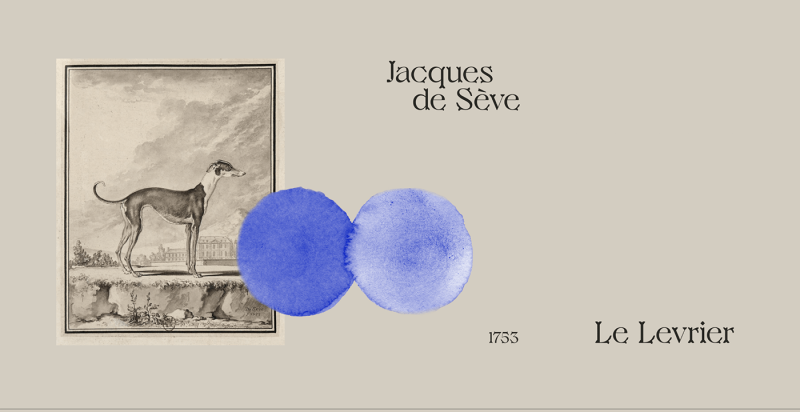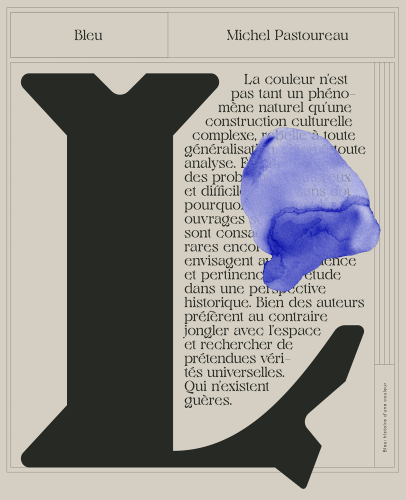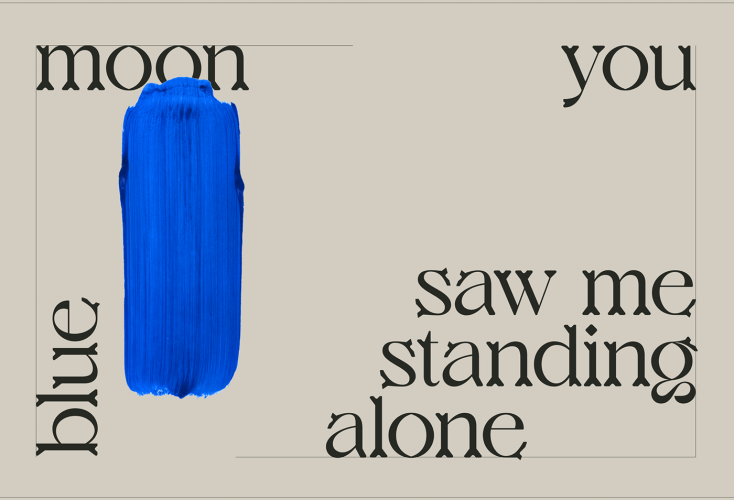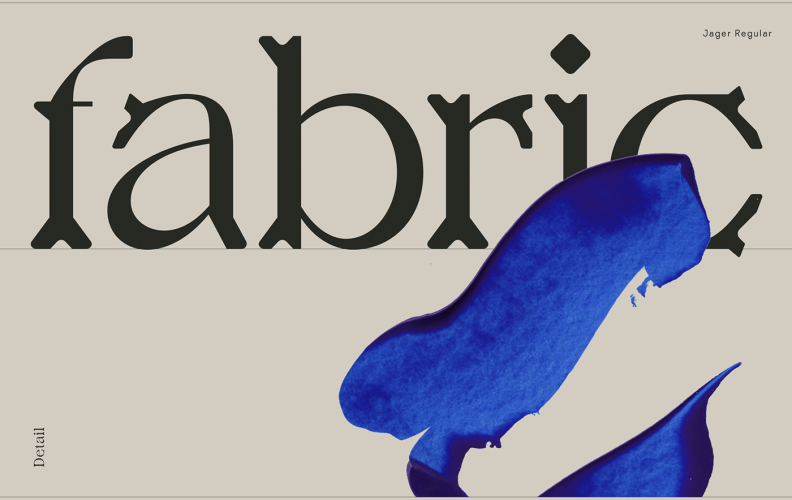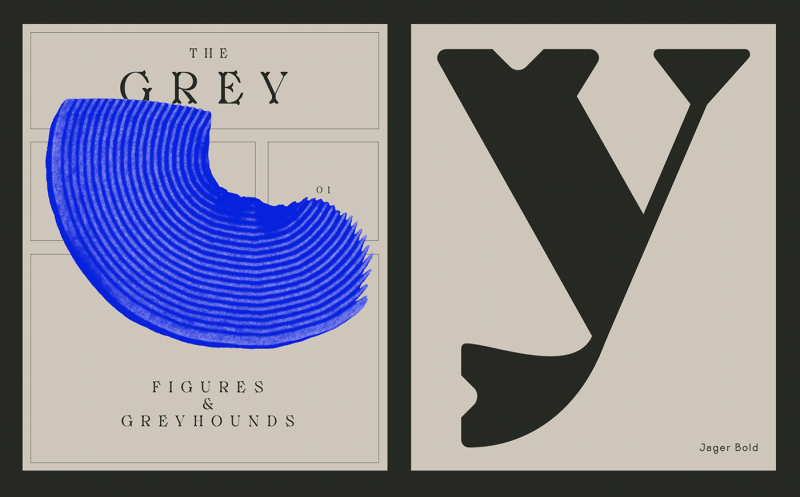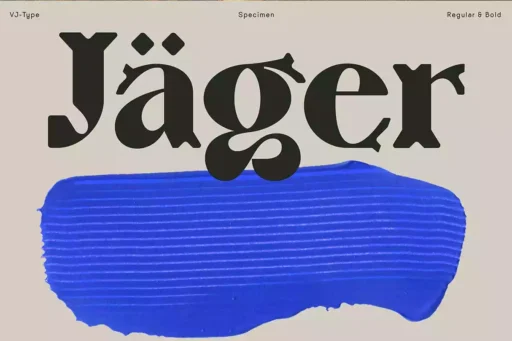
Jager Font
Jager is a contemporary display font. A lot of people think it is a perfect instrument for making eye-catching titles or texts of short to medium length. Jérémy Schneider came up with this font in 2020 for VJ Type, a famous type foundry.
The start of Jager’s journey was a show of contemporary art crafts at the Musées des Arts Décoratifs in Paris. Jérémy Schneider created the first sketches of this type five years before its official launch, thus, he became a true example of perseverance and diligence. The deep counterforms of the letters are similar to the intricate carvings that can be seen in sculptures or chisel work.
The designers made the design by carving a piece of wood with the fine-cut details. The contrary is, the round edges soften its overall appearance and make it friendly and pleasant.
The Jäger Master is almost the same as the original plan. Thus, the majority of the original bold and advanced typefaces are presented. At the same time, the Jäger Classic version changes the shape of the letters’ counters at the tops. Hence, it is a more organic and flexible decision for designers.
Where Jager Font works best
Thumbnails and covers
Jager Font is built to be recognised small. Three words, high contrast, and it survives being scaled to a phone screen.
Event and match posters
Display letters at full width make a date and a name readable across a room, which is all a poster has to do.
Merch and streetwear
Heavy display shapes print cleanly on fabric and stay legible when the garment moves.
What kind of work does Jager Font suit?
It sits in the Display Fonts group and reads as bold, classic, contemporary, display. That makes it a candidate wherever those qualities help: headings, packaging, social graphics and brand work. Set it at the size you plan to use before deciding.